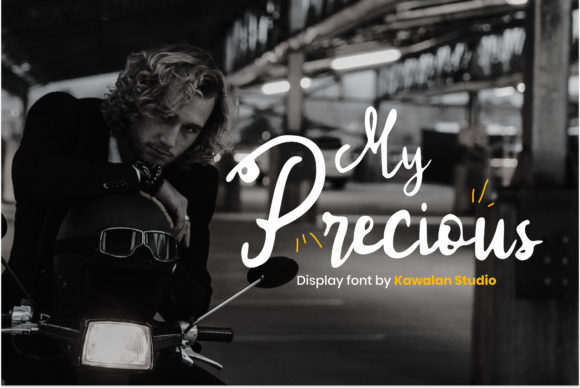
Introducing "My Precious Font," a spellbinding script font that will cast a magical aura on your creative projects. Enter the realm of enchanting calligraphy with this meticulously crafted font, designed to transport your words into captivating works of art. My Precious is not just a font; it's a gateway to a world where imagination and elegance collide.
Unleash the allure of your fashion brand with My Precious, where every letter dances like a graceful ballerina across your designs. Let the smooth curves of this font enchant your customers, drawing them into a world of sophistication and timeless beauty. Let your words take center stage in marketing campaigns, leaving an indelible mark on the hearts and minds of your audience.
Journey into the realm of editorial design with My Precious, where words become living poetry. Craft captivating headlines that dance off the page, enticing readers to delve into the depths of your storytelling. Let My Precious elevate your magazines, articles, and blogs, transforming them into captivating works of art. The smooth, flowing lines of this script font will guide your readers on a journey of discovery, leaving them enchanted by the beauty of your prose.
My Precious is more than just a font; it's an investment in your creative endeavors. Its versatility knows no bounds, allowing you to weave your magic across a multitude of projects. From branding to invitations, from social media posts to website designs—My Precious will add a touch of elegance and sophistication that will leave your audience spellbound.
Don't settle for ordinary fonts. Embrace the extraordinary with My Precious, and unleash the boundless potential of your imagination. Let this enchanting font ignite your passion for creativity, leaving an indelible mark on the world through your captivating designs. My Precious—a treasure to behold, a font to cherish forever.